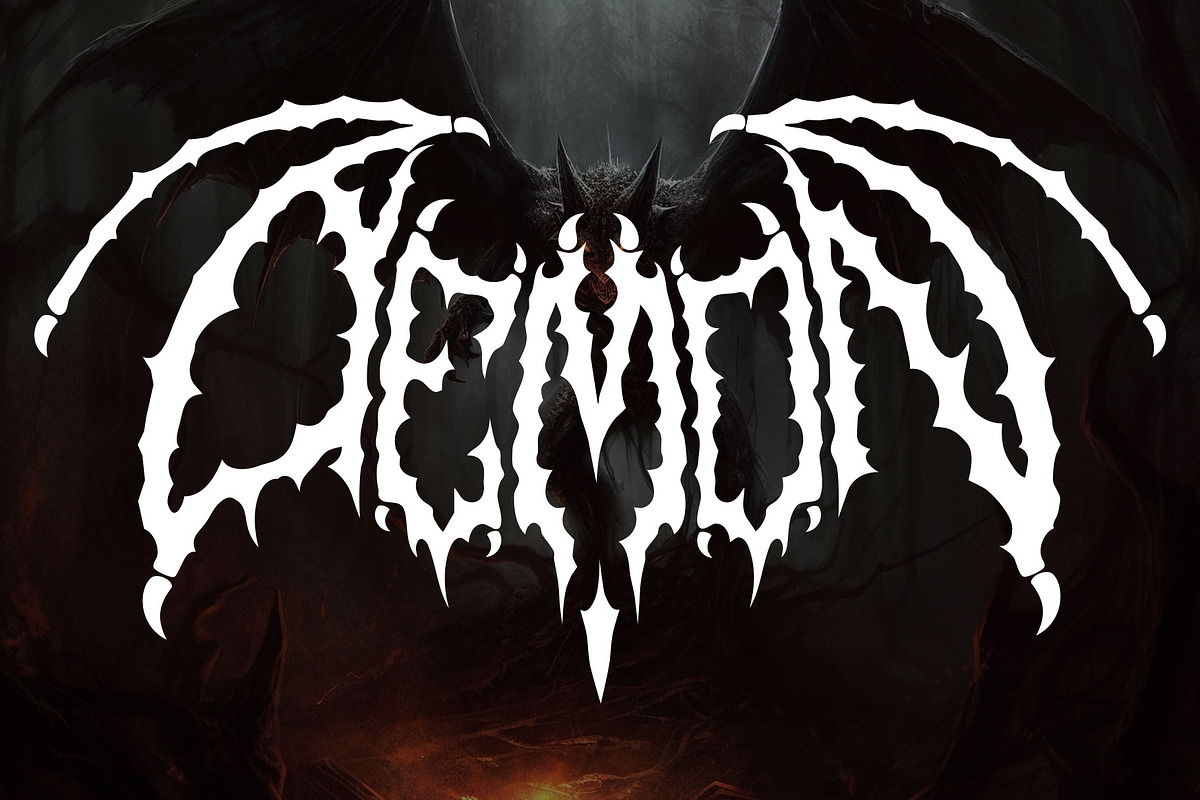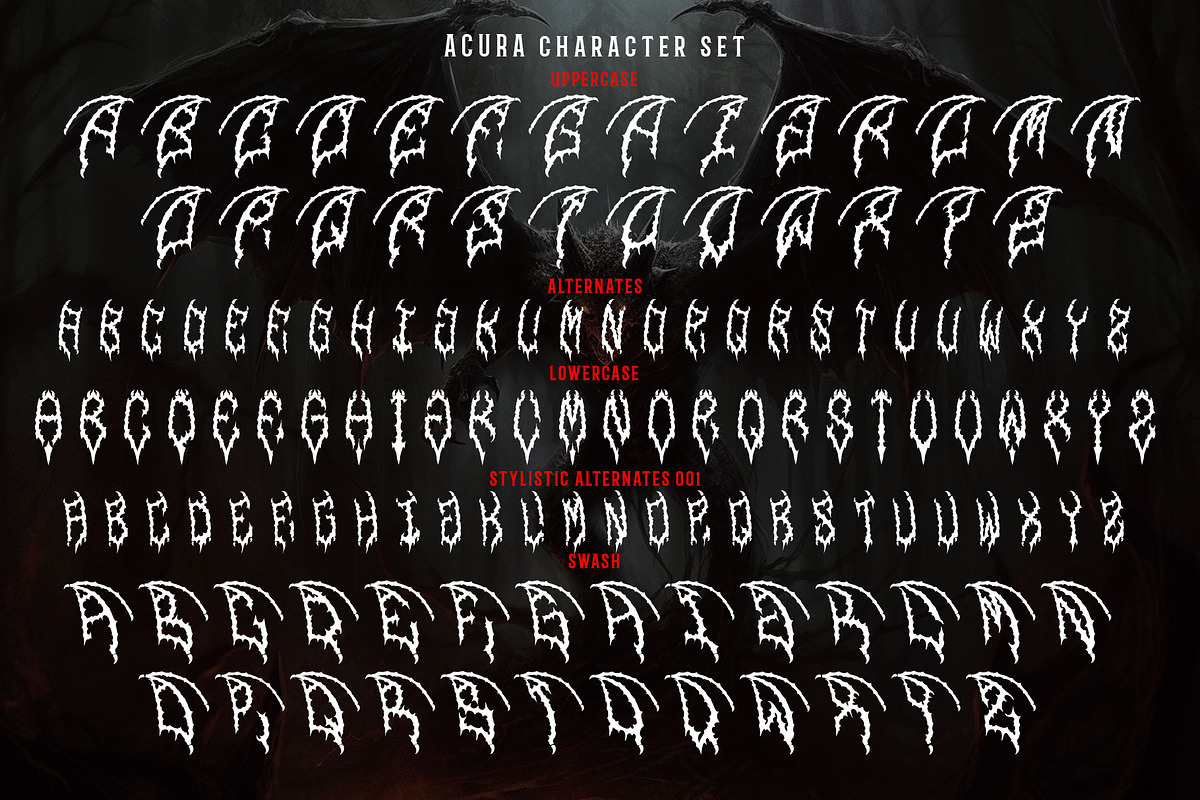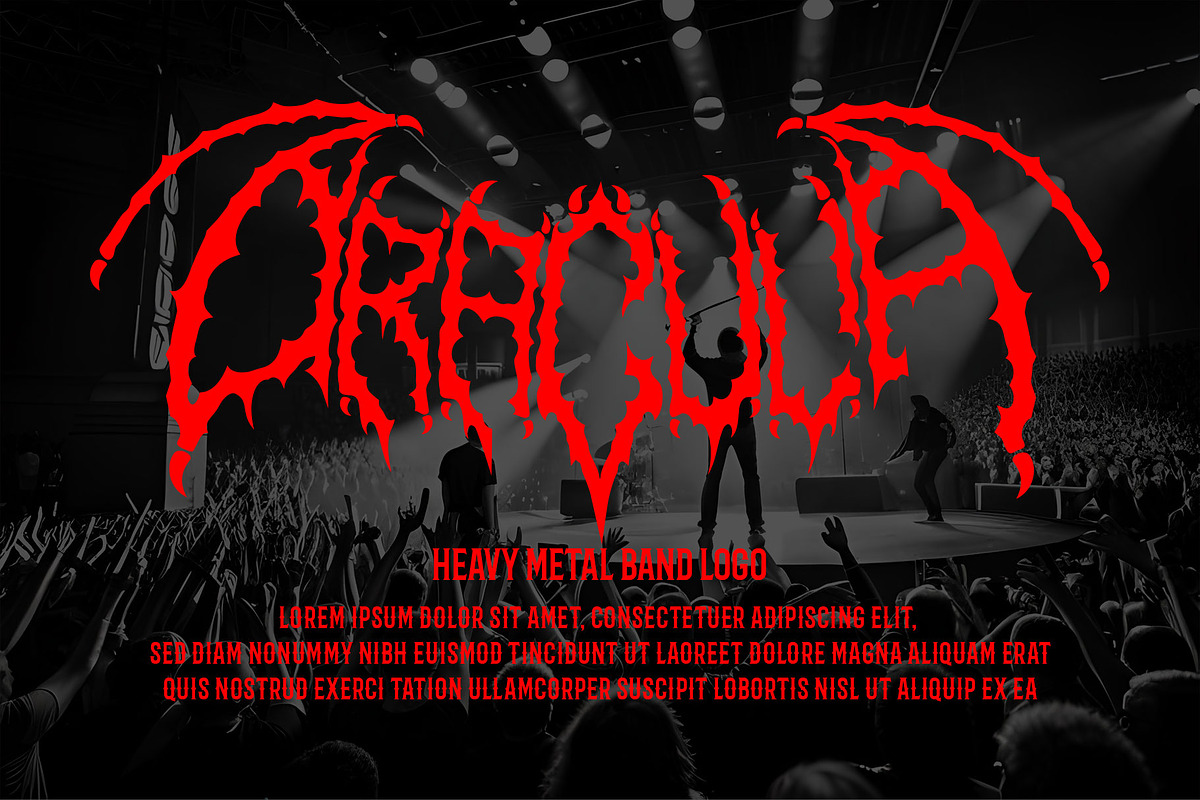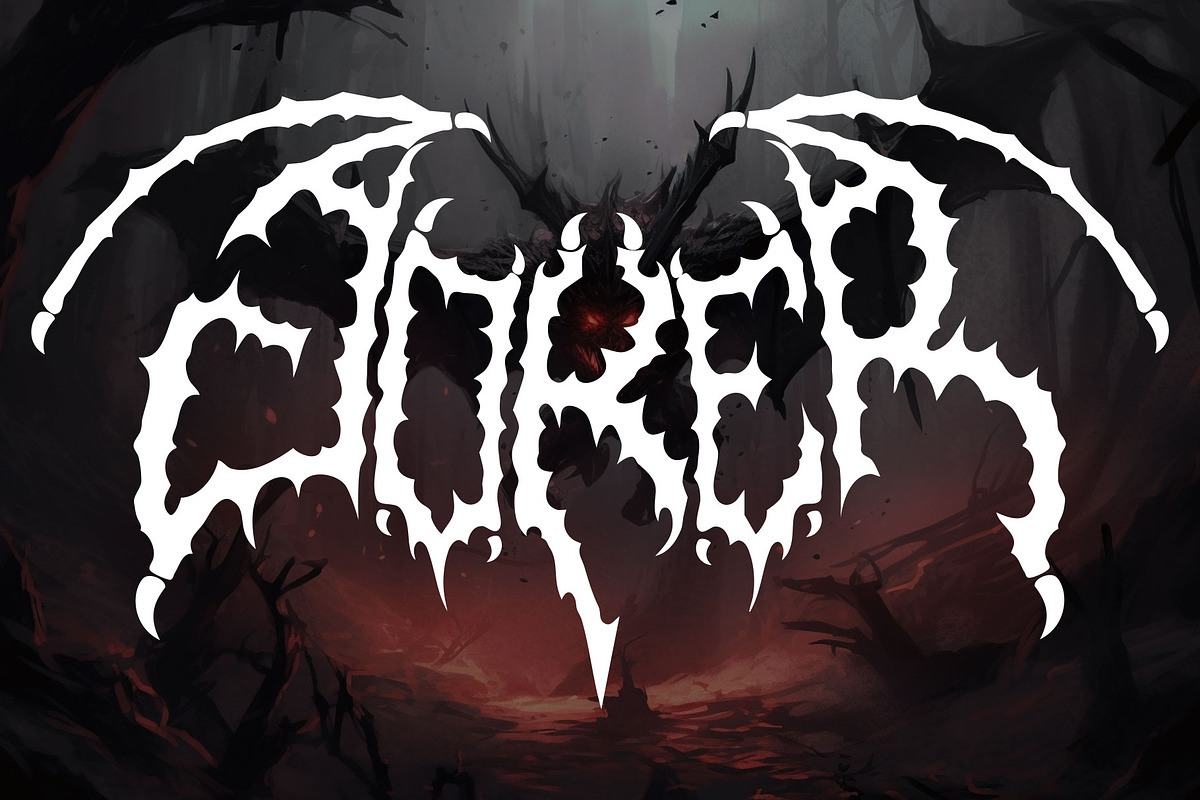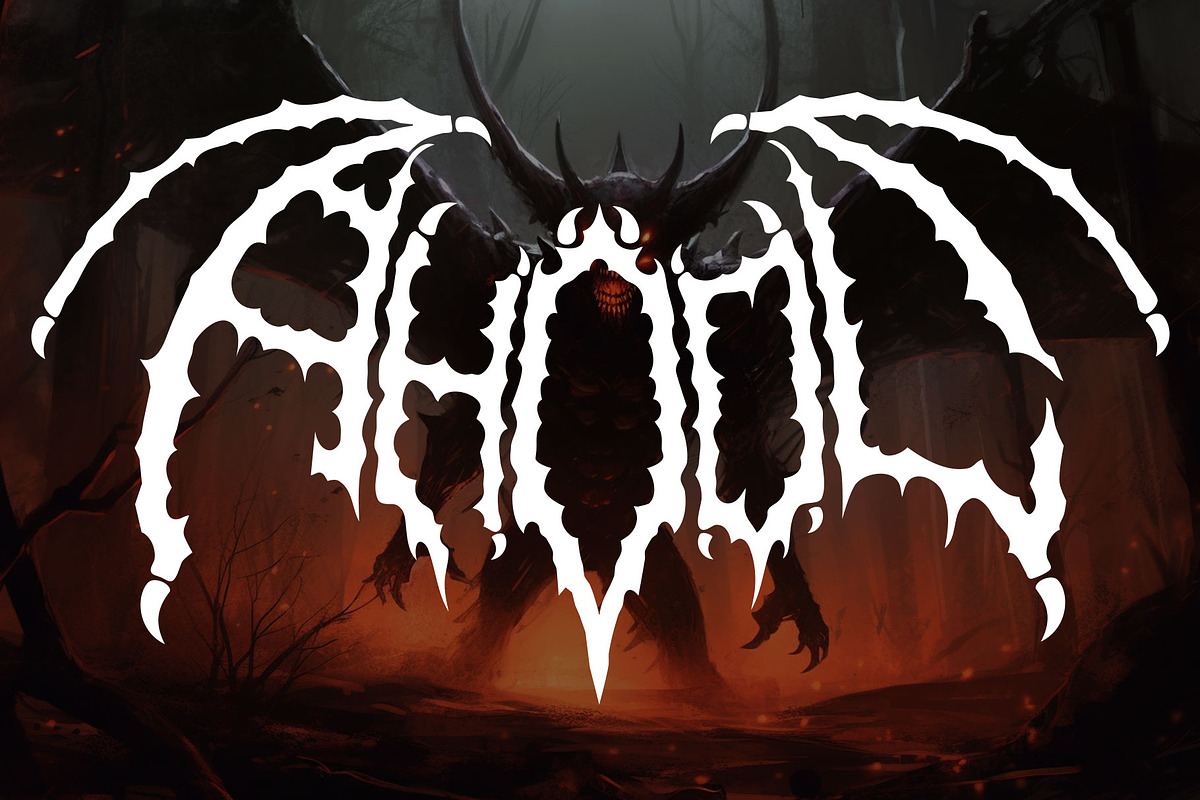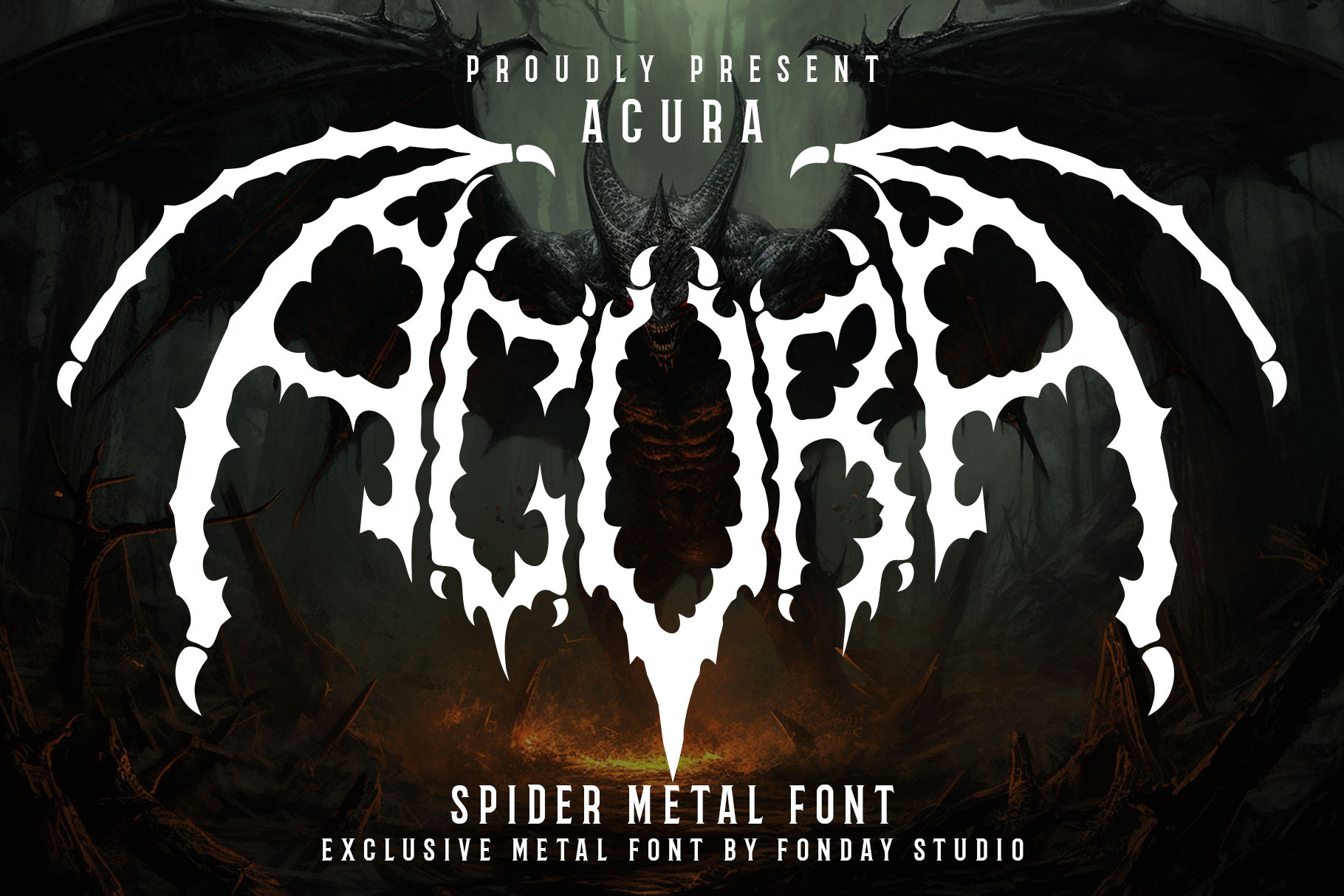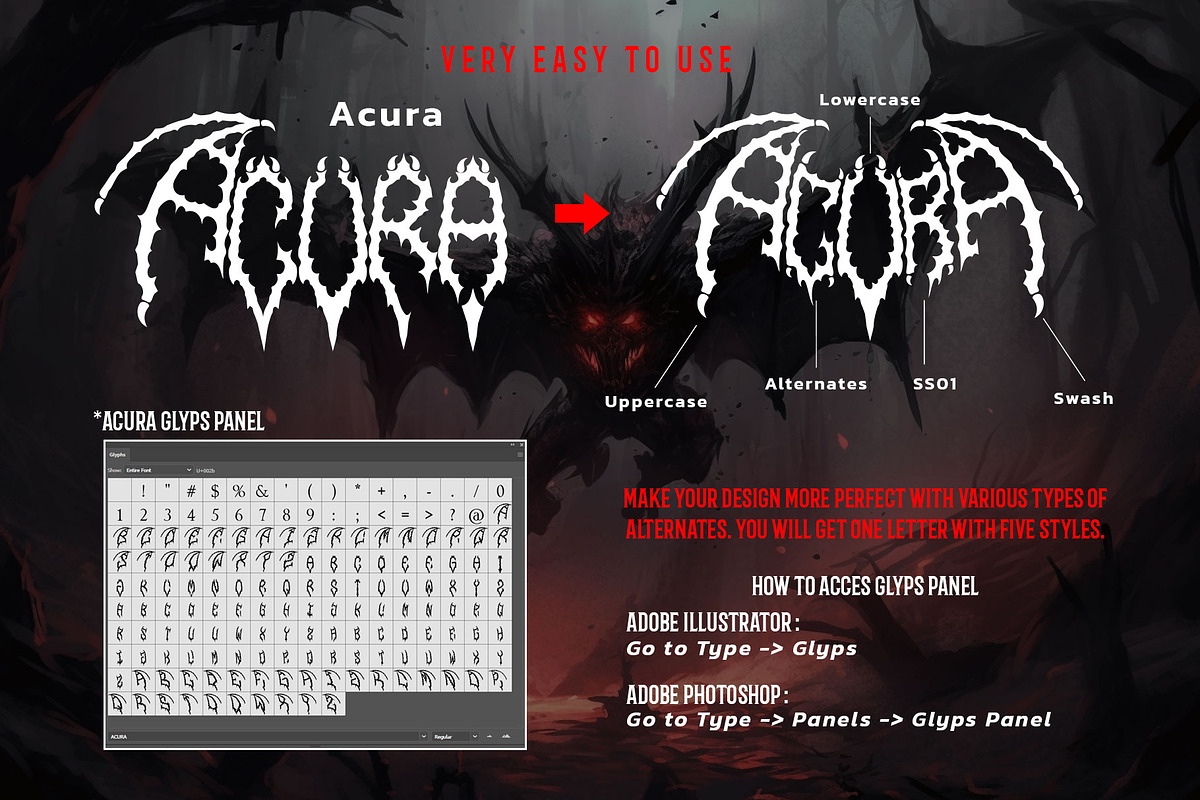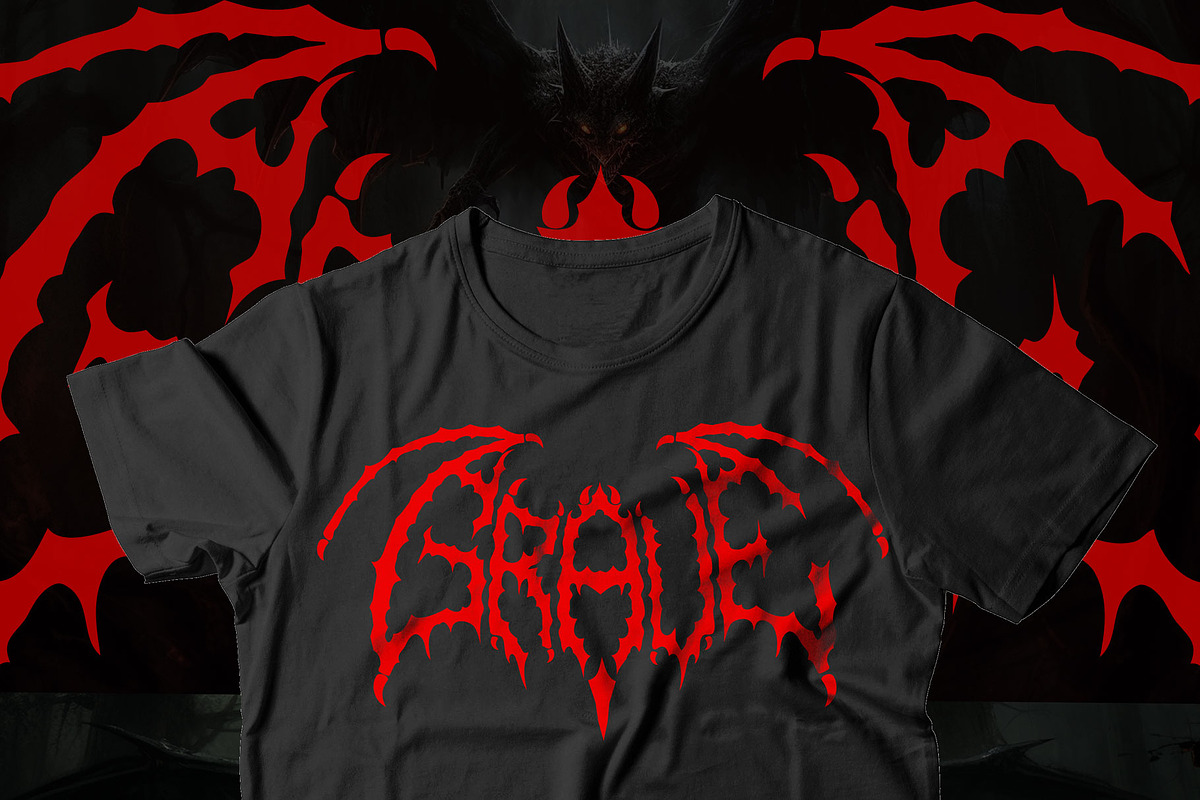
ACURA METAL – Death Metal Font
Introducing “ACURA: Bat Metal” – a font specifically crafted for the dynamic and intense world of metal music. Inspired by the enigmatic essence of bats, ACURA captures the dark and mysterious atmosphere that resonates with metal enthusiasts.
ACURA: Bat Metal is designed to embody the raw power and untamed energy that bats symbolize. The font features bold, sharp edges that mirror the fierce and relentless nature of metal music. Each letter is meticulously crafted to showcase the winged motifs and intricate details reminiscent of a bat’s silhouette.
With ACURA: Bat Metal, your band’s name will take flight, leaving an indelible mark on the metal scene. Whether you’re designing album covers, concert posters, or band merchandise, this font will infuse your visuals with a sense of dark allure and gothic aesthetics.
- All Caps Character
- Stylistic Alternate